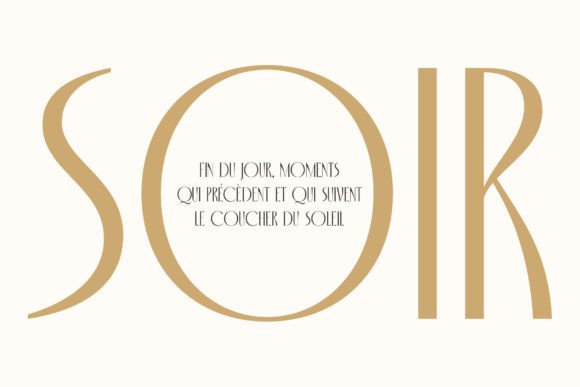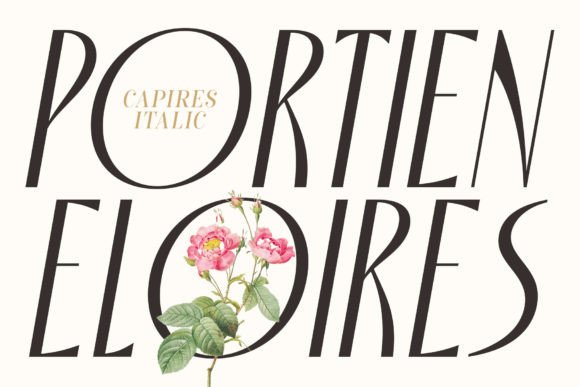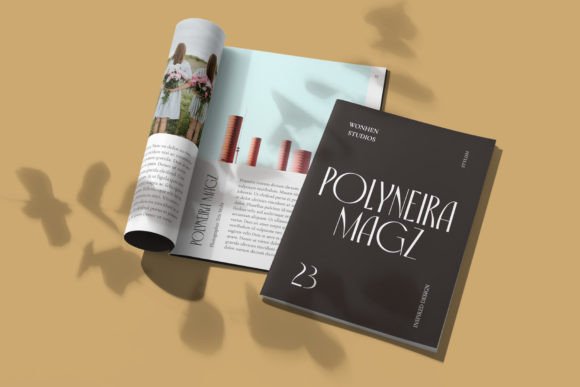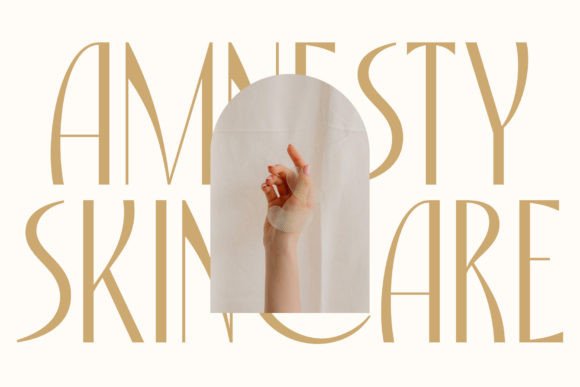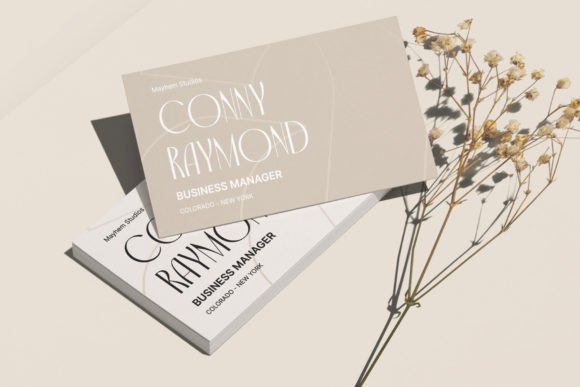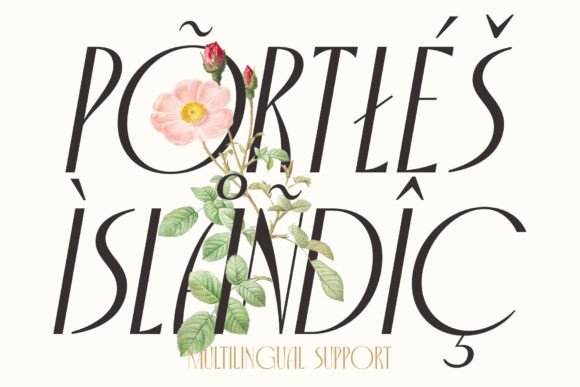
Introducing Capires Font: A Timeless Fusion of Art Deco and Art Nouveau
In the world of typography, few fonts have managed to capture the essence of two iconic art movements as seamlessly as Capires. This captivating font is a beautiful blend of Art Deco’s geometric precision and Art Nouveau’s intricate, organic motifs, resulting in a harmonious masterpiece of design. In this article, we’ll explore the unique features of Capires and why it’s the perfect choice for designers and crafters looking to add a touch of timeless elegance to their projects.
The Artistic Heritage of Capires
Capires Font is a contemporary typeface that pays homage to the rich artistic heritage of both Art Deco and Art Nouveau. The font’s design is rooted in the opulence and glamour of Art Deco, which emerged in the 1920s as a response to the austerity of the post-war era. Art Deco is characterized by its geometric shapes, metallic materials, and ornate decorations, which were often inspired by ancient cultures such as Egypt and Mesopotamia.
On the other hand, Art Nouveau is a style that emerged in the late 19th century, characterized by its flowing, organic lines and biomorphic forms. This style is often associated with the works of artists such as Alphonse Mucha and Gustav Klimt, who sought to break away from traditional forms and create a new kind of art that was more expressive and personal.
A Harmonious Fusion of Styles
Capires Font beautifully combines the geometric precision of Art Deco with the intricate, organic motifs of Art Nouveau, resulting in a unique and mesmerizing synthesis of these two influential art movements. The font’s design features a range of elegant and refined characters, with clean lines, precise curves, and ornate decorations that evoke the glamour of Art Deco.
At the same time, Capires also incorporates the flowing, organic lines and biomorphic forms that are characteristic of Art Nouveau. The font’s letters are adorned with intricate flourishes and ornaments, which add a touch of whimsy and elegance to any design.
Perfect for a Range of Design Projects
Capires Font is the perfect choice for designers and crafters working on a range of projects, from branding and packaging to editorial design and digital media. The font’s timeless elegance and artistic richness make it an excellent choice for projects that require a touch of sophistication and glamour.
Whether you’re designing a logo, creating a brochure, or developing a website, Capires brings a sense of refinement and luxury to your work. The font’s versatility and legibility make it suitable for use in a variety of contexts, from headlines and titles to body text and captions.
Why Choose Capires?
So why choose Capires Font for your next design project? Here are just a few reasons:
- Unique and captivating design: Capires is a one-of-a-kind font that will set your designs apart from the crowd.
- Timeless elegance: The font’s classic design ensures that it will remain stylish and relevant for years to come.
- Artistic richness: Capires is a font that is steeped in artistic heritage, making it perfect for designers who appreciate the finer things in life.
- Versatility: The font is suitable for use in a range of contexts, from print to digital media.
In conclusion, Capires Font is a truly exceptional typeface that offers a unique and captivating fusion of Art Deco and Art Nouveau. With its elegant design, precise lines, and ornate decorations, Capires is the perfect choice for designers and crafters looking to add a touch of timeless elegance to their projects. Whether you’re working on branding, packaging, or editorial design, Capires is a font that will transform your creations into an elegant and visually captivating experience.